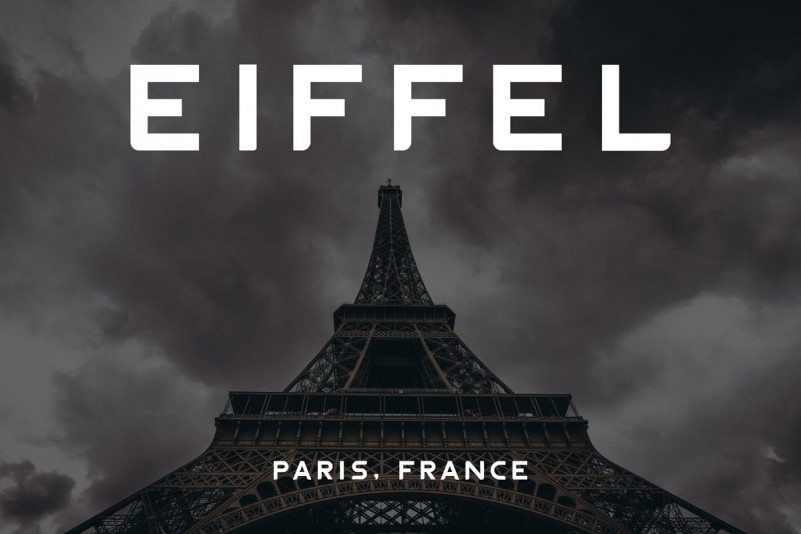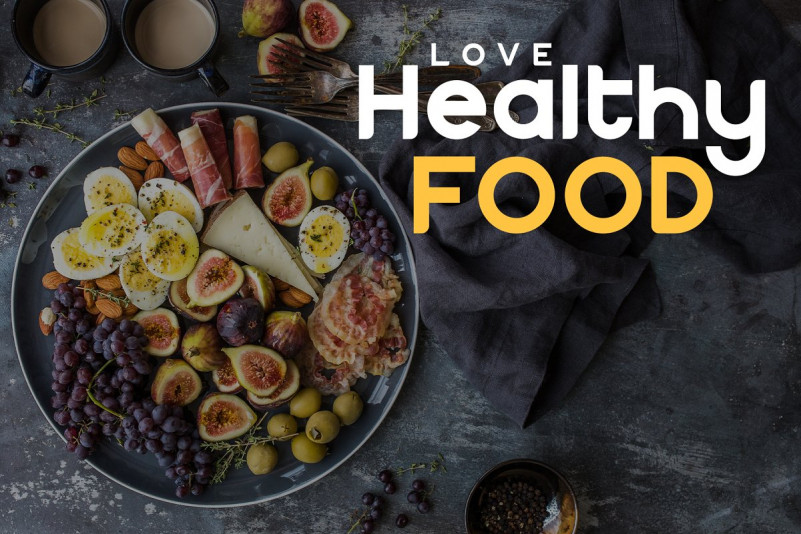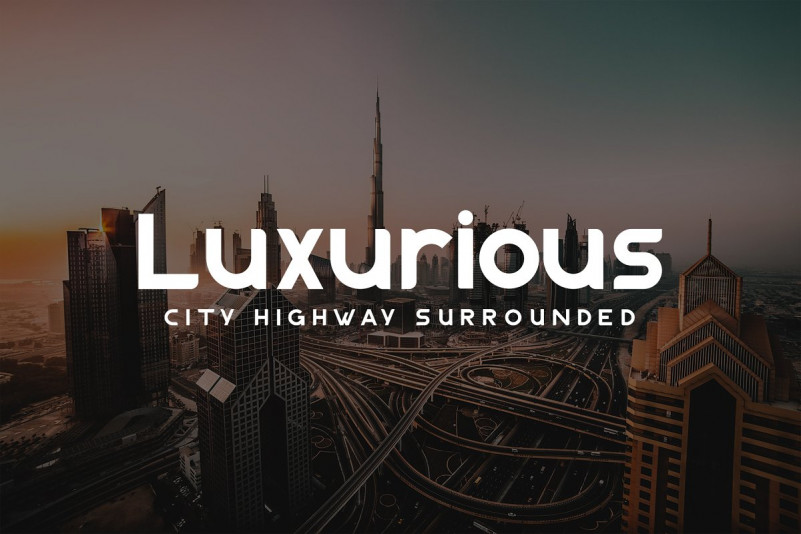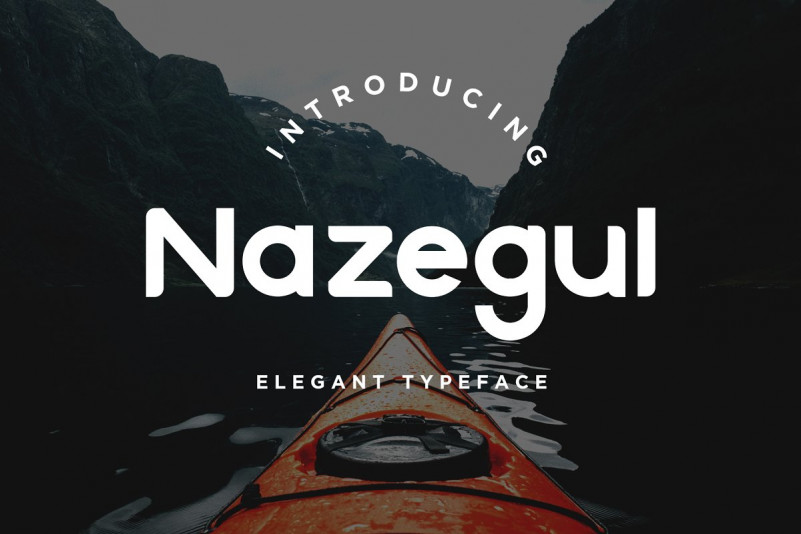
Nazegul Typeface
This is modern sans serif typeface by Guna Studio. This is a very versatile font family. It can be used in vintage or contemporary designs. Introducing Nazegul Elegant Typeface. Nazegul Font will be perfect for many different projects such as logos & branding, invitation, poster, flyer, wedding designs, social media posts, advertisements, product packaging, product designs, label, photography, watermark, special events or movie poster title just like what I did on the preview above.